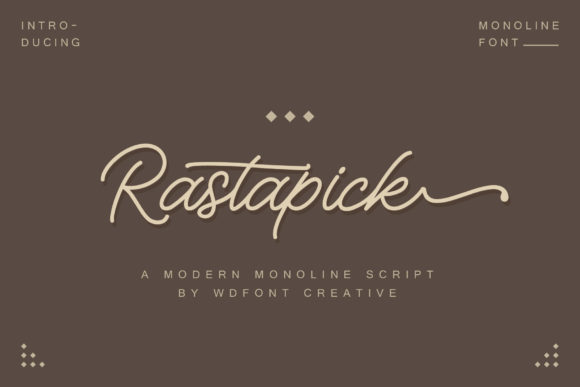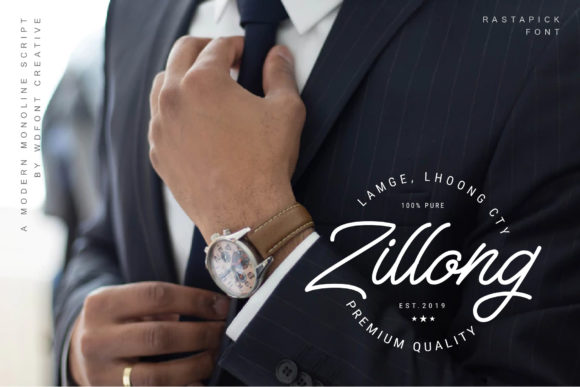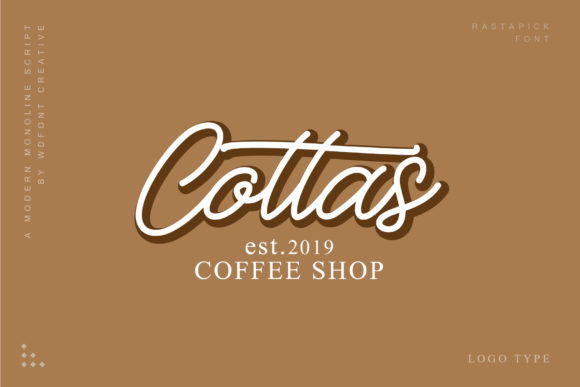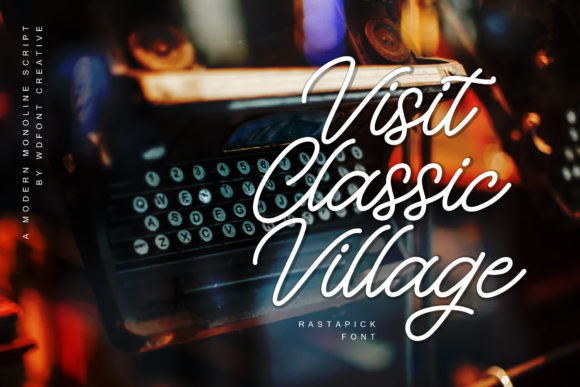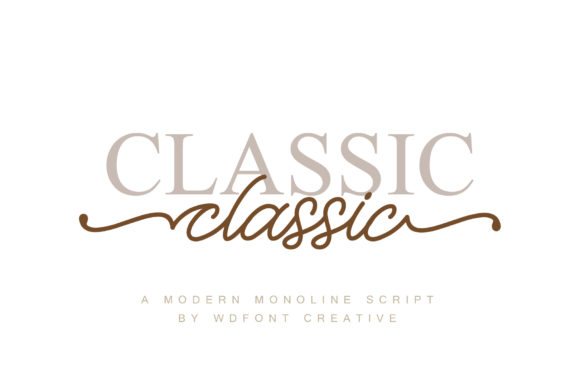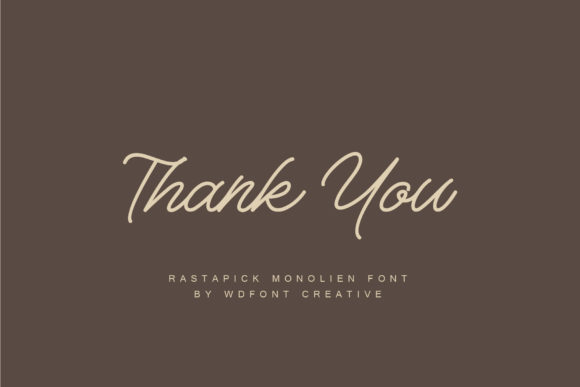
Rastapick Font
About Rastapick Font
Rastapick is a classic, yet fun handwritten font with an undeniable charm. Fall in love with its authentic swashes, and turn any design project into a true stand out.